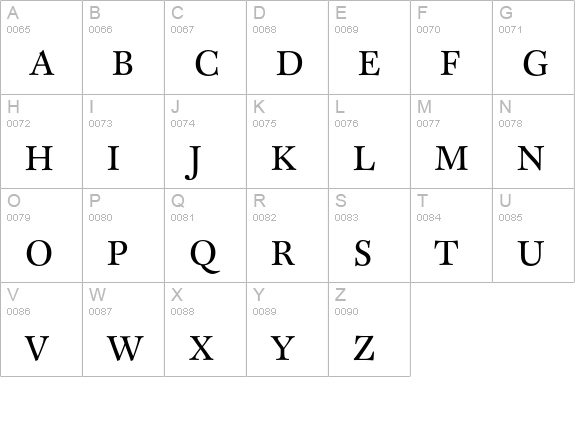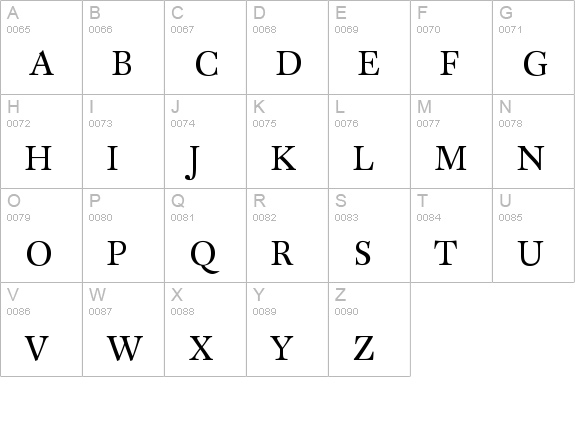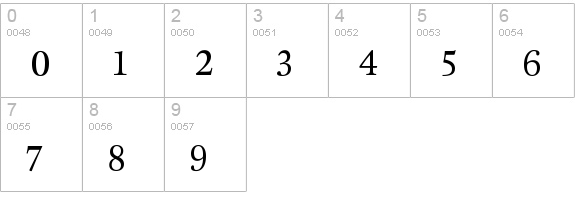
CliffordEighteen-RomanLFF is a classic and elegant serif font that exudes sophistication and timelessness. With its graceful curves and sturdy serifs, this font is perfect for adding a touch of refinement to your designs. Whether you are working on a print project or a digital design, CliffordEighteen-RomanLFF will elevate your work with its timeless appeal. The best part? This exquisite font is available for free download at FontsMarket.com, making it easily accessible for designers and creatives looking to enhance their projects without breaking the bank. Don't miss out on the opportunity to add CliffordEighteen-RomanLFF to your font collection and elevate your designs with its timeless beauty.